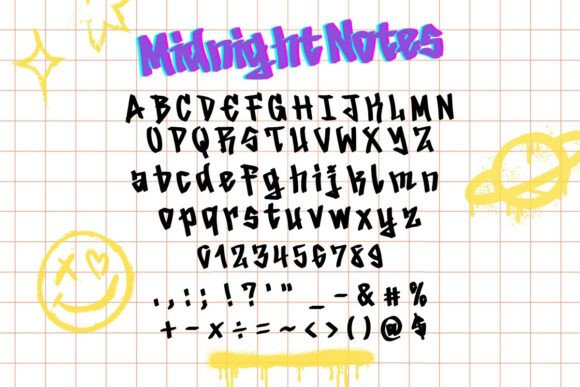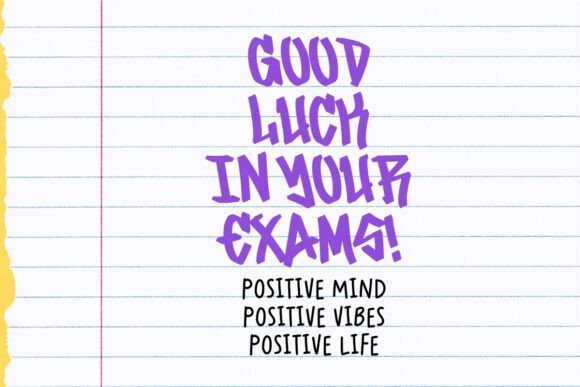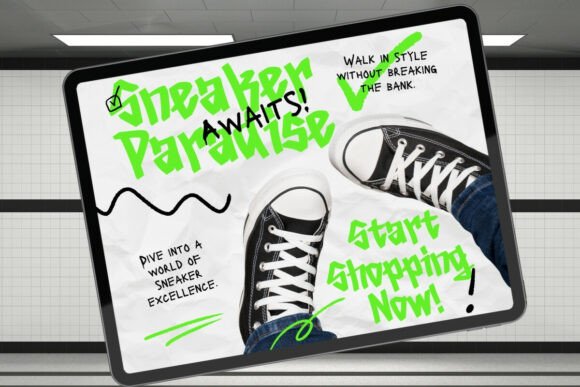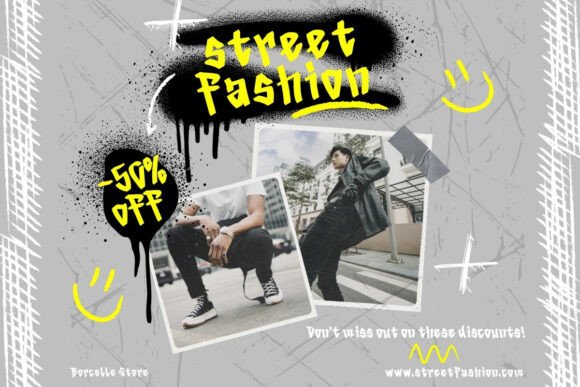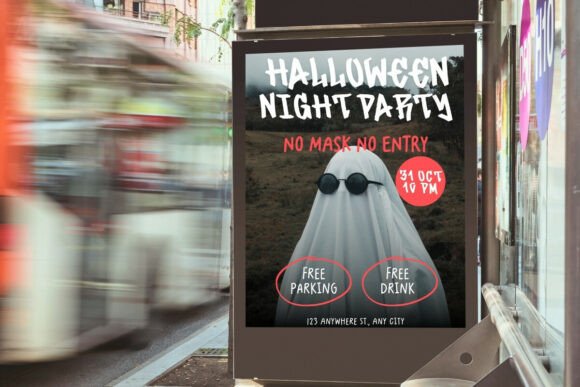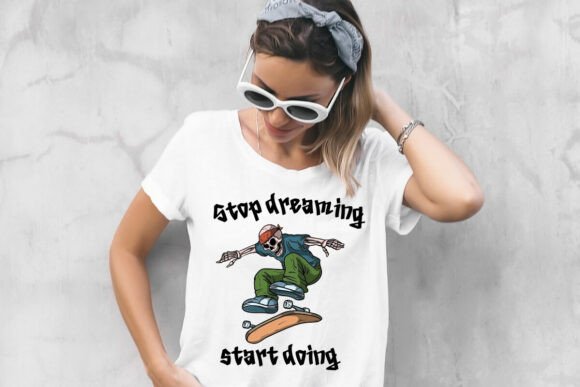
Introduction to Midnight Notes Font Font
Fonts play a crucial role in design, and the Midnight Notes Font font is a typeface that brings both character and versatility to any project. Whether you’re working on a branding project, a website, or a print design, the Midnight Notes Font font offers a unique style that can elevate your work.
Meet Midnight Notes, a spooky handwritten font with edgy vibes β perfect for Halloween yet versatile enough for everyday use.
Its raw, playful strokes bring life to party posters, invitations, digital planners, stickers, and social media graphics Whether youβre designing a Halloween invitation, a scary movie poster, or simply adding an edgy handwritten touch to journals, logos, and quotes, this font adapts beautifully across seasons.
The Midnight Notes Font font is more than just a typeface β it’s a design tool that helps you communicate your message with style and clarity. Its unique character set and versatile design make it suitable for a wide range of applications, from elegant invitations to bold headlines.
With its carefully crafted letterforms and balanced proportions, the Midnight Notes Font font ensures readability and visual appeal across all mediums.
The Midnight Notes Font font stands out with its unique design, exceptional readability, and versatility across various design applications.